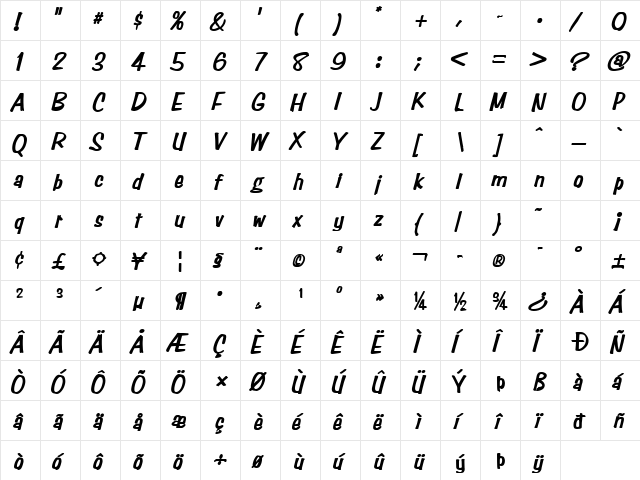
Simpson Bold Italic
Design Context for Simpson Typeface
Simpson takes a measured approach to typography — its balanced proportions and neutral character make it a reliable workhorse for both digital and print work. Its italic angle brings a sense of urgency and motion to the letterforms. The heavy weight commands attention and anchors typographic hierarchies.
Pro Tip: Use Simpson for emphasis, pull quotes, and subheadings where its slanted energy can add rhythm to the layout.